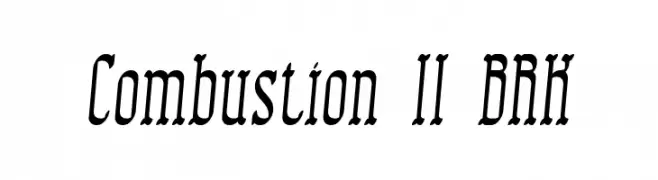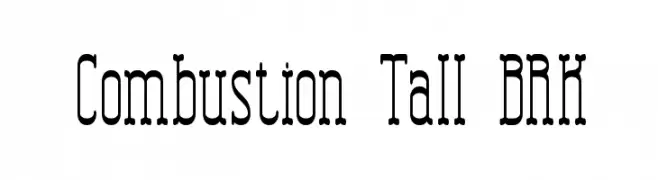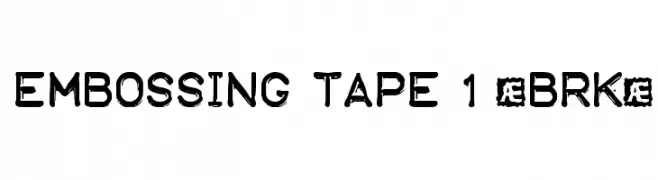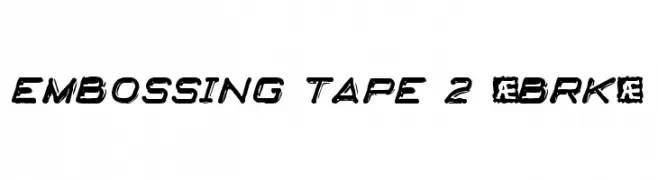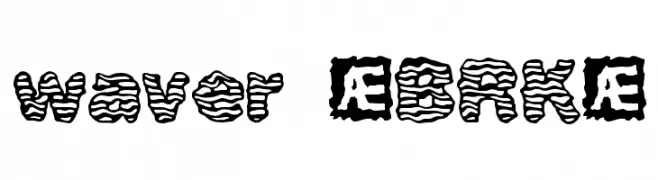
A bold, geometric font with thick, uniform strokes and minimal contrast.
A bold, dynamic font with a slant and sharp serifs, ideal for impactful designs.
A tall, narrow font with subtle serifs and a modern yet classic style.
A tall, playful font with rounded terminals and a whimsical style.
A bold, angular serif font with a vintage flair and dynamic presence.
A decorative serif font with elongated serifs and a tall, narrow structure.
A bold, embossed-style font with a retro label-maker aesthetic.
A bold, wavy font with a dynamic, three-dimensional effect.
A bold, embossed-style font with a retro label-maker aesthetic.